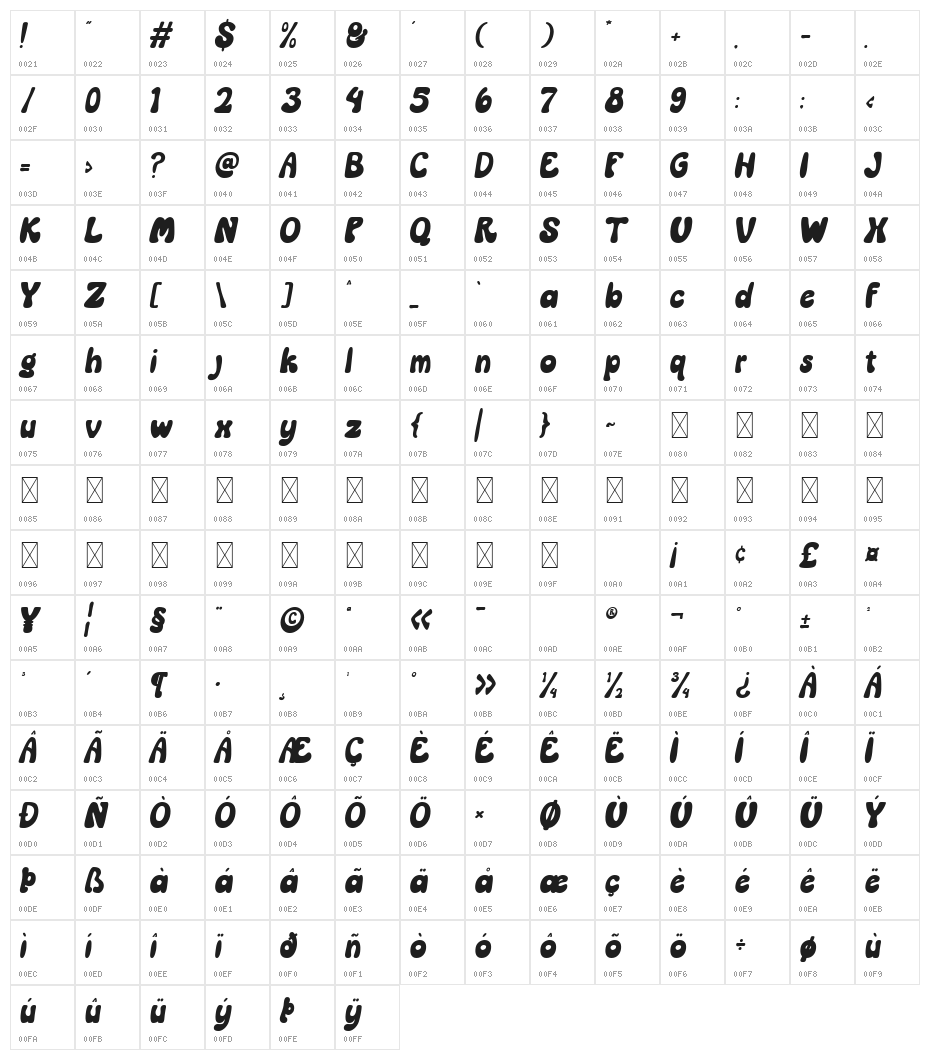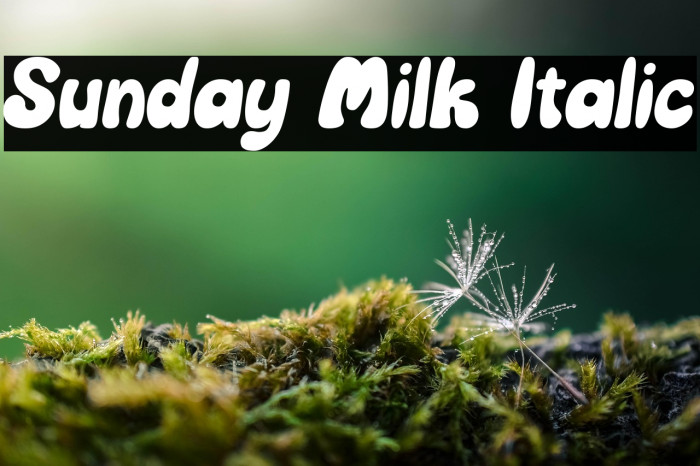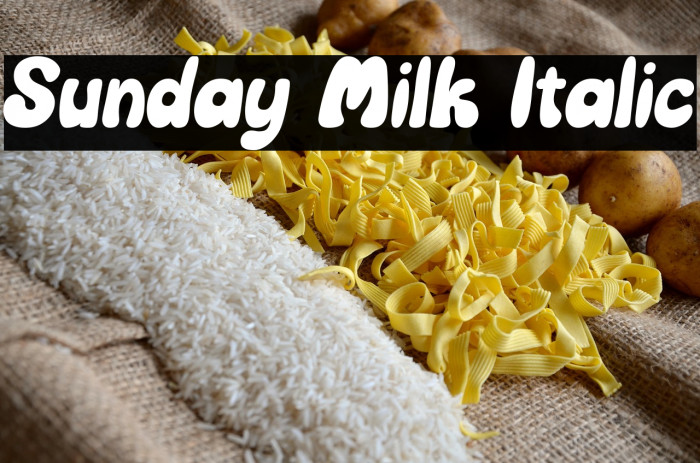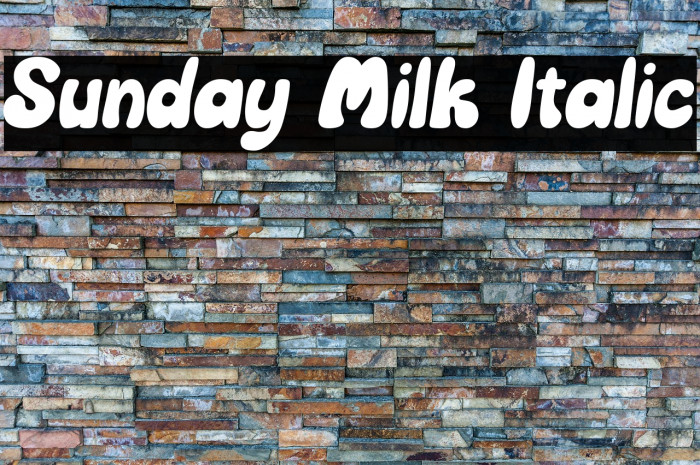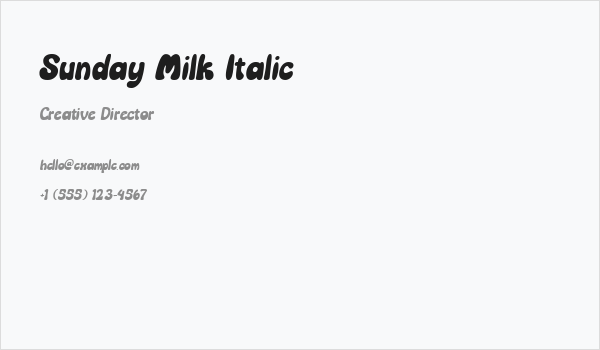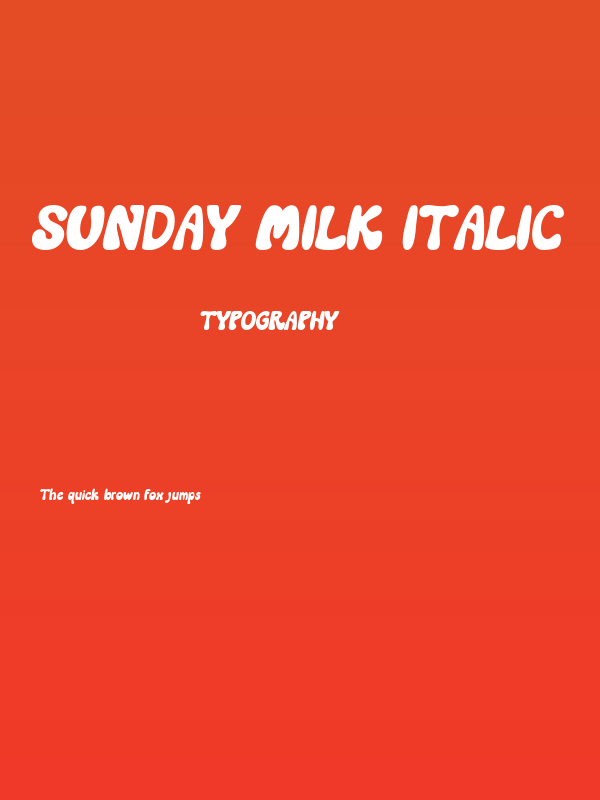
Sunday Milk Italic Font
Sunday Milk Italic Description
This font features a playful and bold style with rounded edges and a slightly italicized form, giving it a casual and friendly appearance. The characters are thick and have a consistent weight throughout, contributing to a strong visual presence. The rounded terminals and smooth curves create a soft and approachable look, making it ideal for projects that require a touch of whimsy. The font maintains a uniform stroke width, ensuring readability while adding a unique character to each letter. Its boldness and rounded form make it stand out, suitable for eye-catching designs.
| Overall Style | Playful, Casual |
| Proposed Projects | Ideal for children's books, playful branding, posters, and social media graphics. |